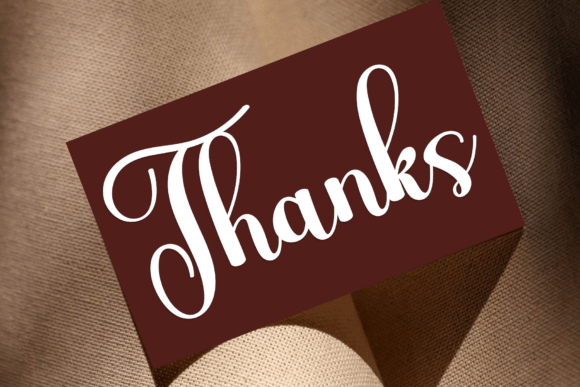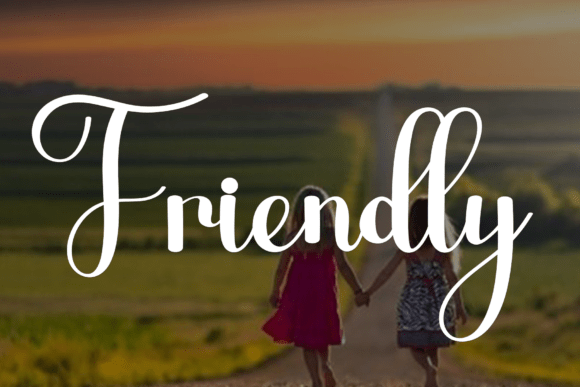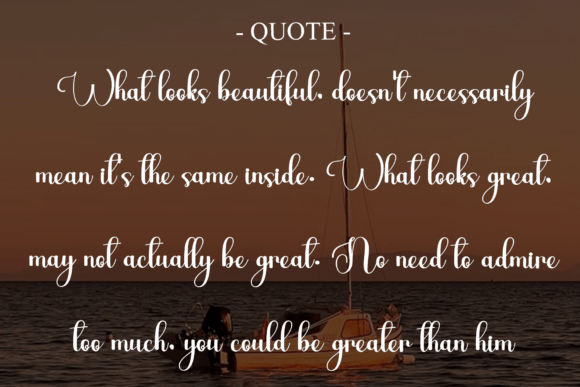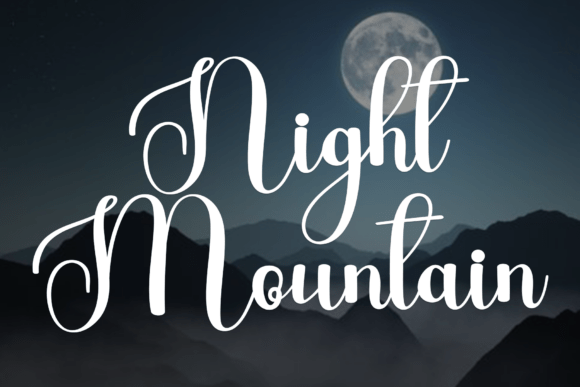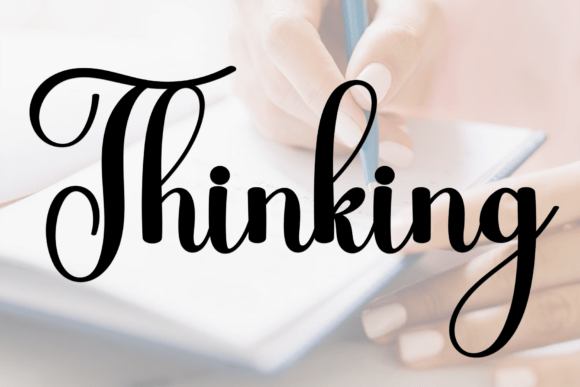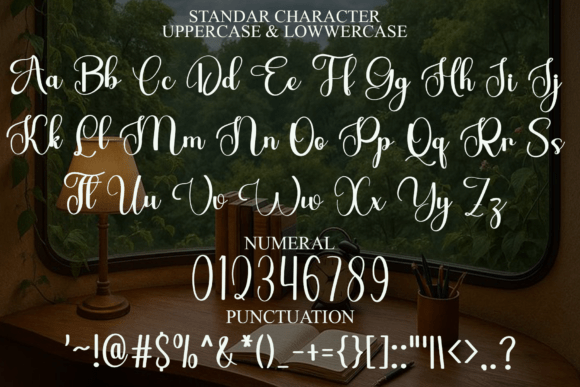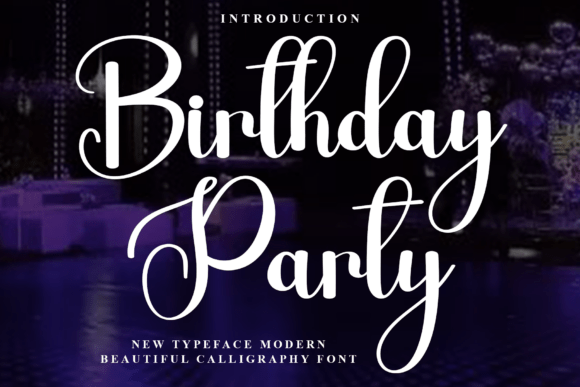
Introducing the Magical Birthday Party Font: Elevate Your Designs with a Festive Touch
Are you searching for a typeface that embodies the joy and excitement of birthday celebrations? Look no further than the Birthday Party Font, a delightful and whimsical font designed to bring a touch of magic to your designs. This festive font is perfect for crafters, designers, and anyone looking to add a dash of holiday cheer to their projects.
Celebrate with a Festive Typeface
The Birthday Party Font is a carefully crafted typeface that captures the essence of the holiday season. Its decorative elements and whimsical flair make it an ideal choice for a variety of design projects, from greeting cards and gift tags to holiday-themed crafts and party invitations. With this font, you can add a touch of enchantment to your words and make your designs shine.
Key Features of the Birthday Party Font
- PUA Encoding: The Birthday Party Font is PUA encoded, which means you can easily access all the amazing glyphs and ligatures. This feature allows you to unlock the full potential of the font and explore a wide range of creative possibilities.
- Decorative Elements: The font boasts an array of decorative elements, including swashes, flourishes, and other whimsical details. These elements can be used to add a touch of personality to your designs and make them stand out.
- Whimsical Flair: The Birthday Party Font has a playful and whimsical feel that’s perfect for holiday-themed designs. Its unique character will add a dash of fun and excitement to your projects.
The Birthday Party Font is versatile and can be used for a wide range of design projects, including:
- Greeting Cards: Create festive and personalized greeting cards for birthdays, holidays, and other special occasions.
- Gift Tags: Add a touch of magic to your gift tags with this whimsical font. Perfect for presents, party favors, and other treats.
- Holiday-Themed Crafts: Use the Birthday Party Font to create festive holiday crafts, such as decorations, garlands, and other DIY projects.
- Party Invitations: Make your party invitations stand out with this festive font. Perfect for birthday parties, holiday gatherings, and other celebrations.
Why Choose the Birthday Party Font?
There are many reasons why the Birthday Party Font stands out from the crowd:
- Unique Character: The font has a distinctive and whimsical character that will add a touch of personality to your designs.
- Ease of Use: The PUA encoding makes it easy to access all the glyphs and ligatures, allowing you to focus on your design.
- Versatility: The font can be used for a wide range of design projects, from greeting cards to holiday-themed crafts.
The Birthday Party Font is a magical and festive typeface that’s perfect for designers, crafters, and anyone looking to add a touch of holiday cheer to their projects. With its decorative elements, whimsical flair, and PUA encoding, this font is sure to become a favorite in your design arsenal. So why wait? Unlock the magic of the Birthday Party Font and let your typography shine!
Whether you’re a seasoned designer or a crafty DIY enthusiast, the Birthday Party Font is sure to bring a smile to your face and a touch of enchantment to your designs. So go ahead, get creative, and let the magic of this beautiful font inspire your next project!